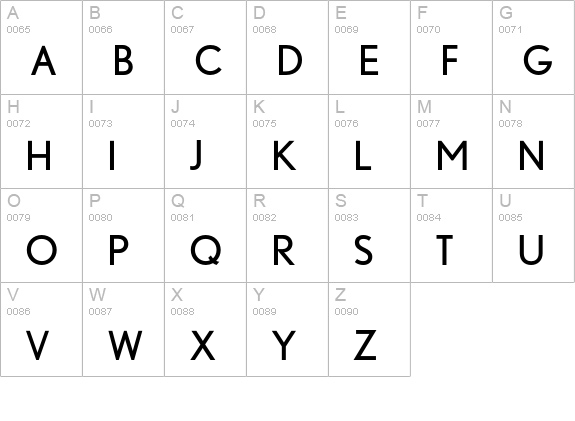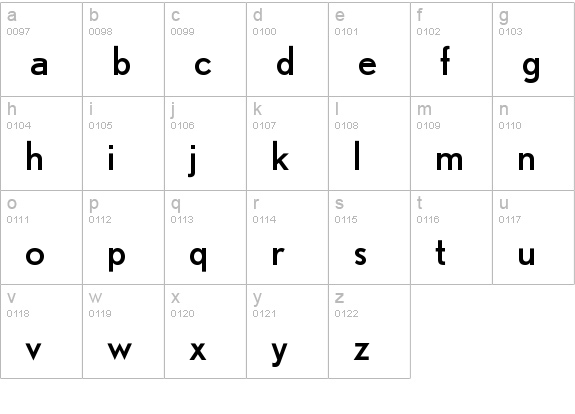
Nobel-Regular is the standard, neutral variant in the Nobel typeface family \xE2\x80\x94 well suited to general body text, paragraphs, and standard typographic work.
Nobel-Regular is a modern and versatile font that exudes elegance and simplicity. With its clean lines and balanced proportions, this typeface is perfect for a wide range of design projects. Whether you're creating a professional document or designing a sleek website, Nobel-Regular is sure to make a statement. The best part is that Nobel-Regular is completely free to use! You can easily download this font from FontsMarket.com and start incorporating it into your designs right away. Don't miss out on the opportunity to enhance your projects with this beautiful and timeless font.